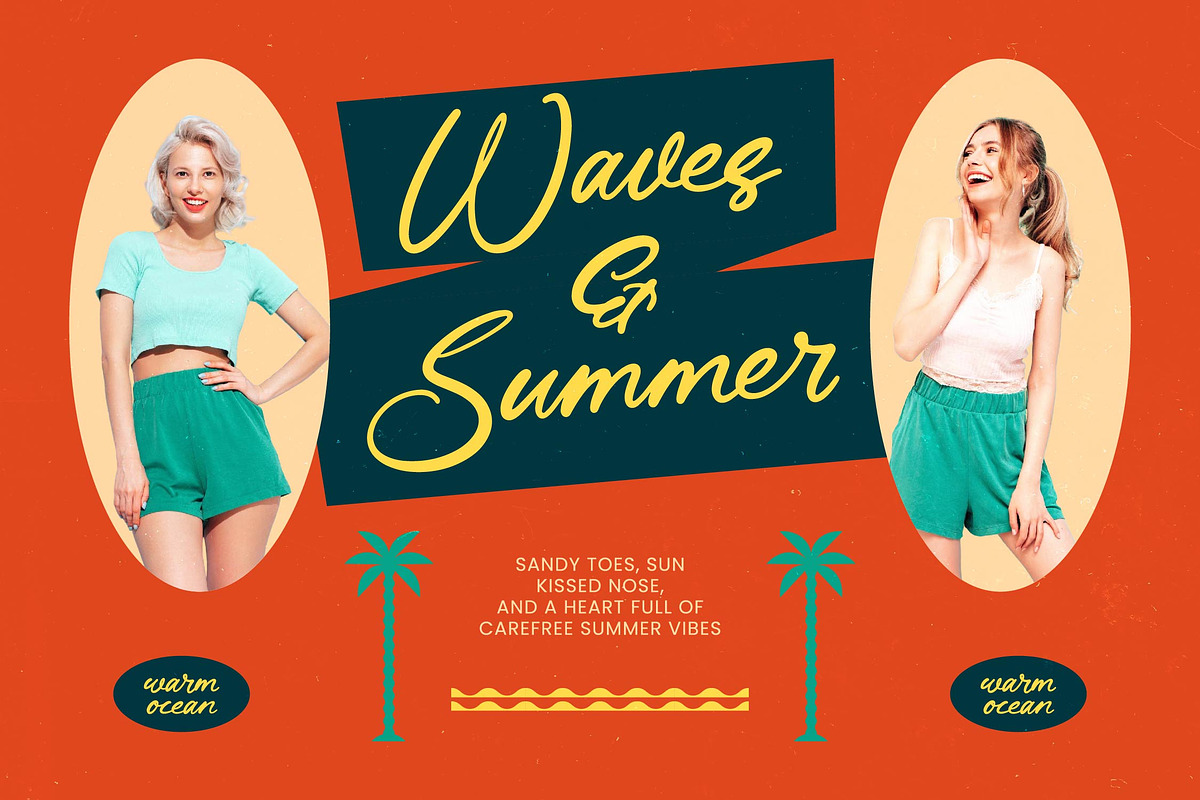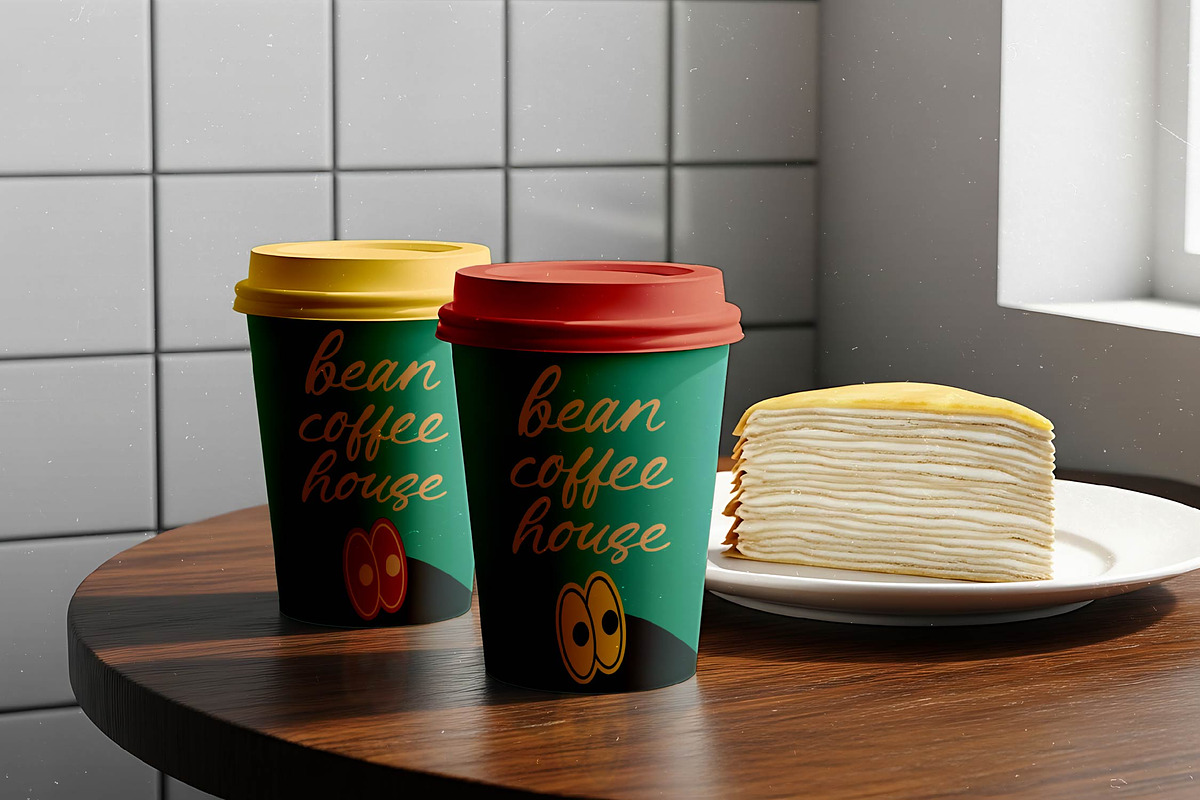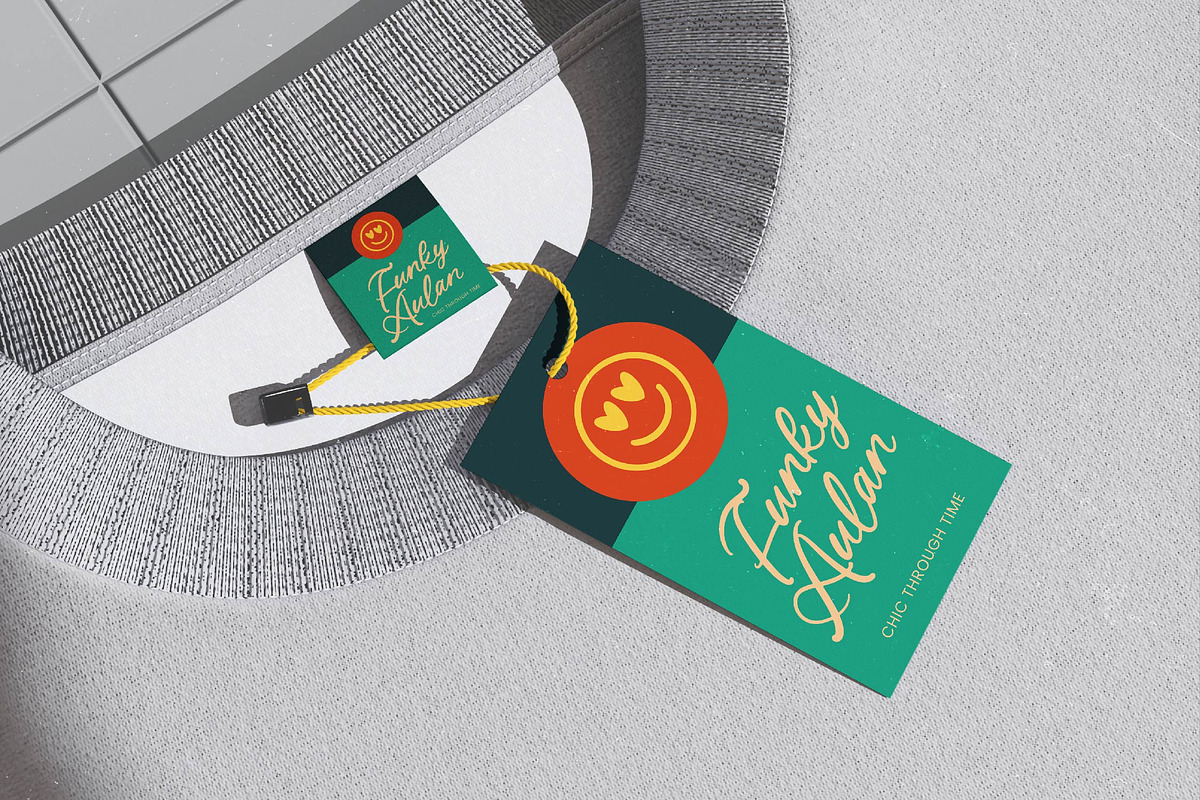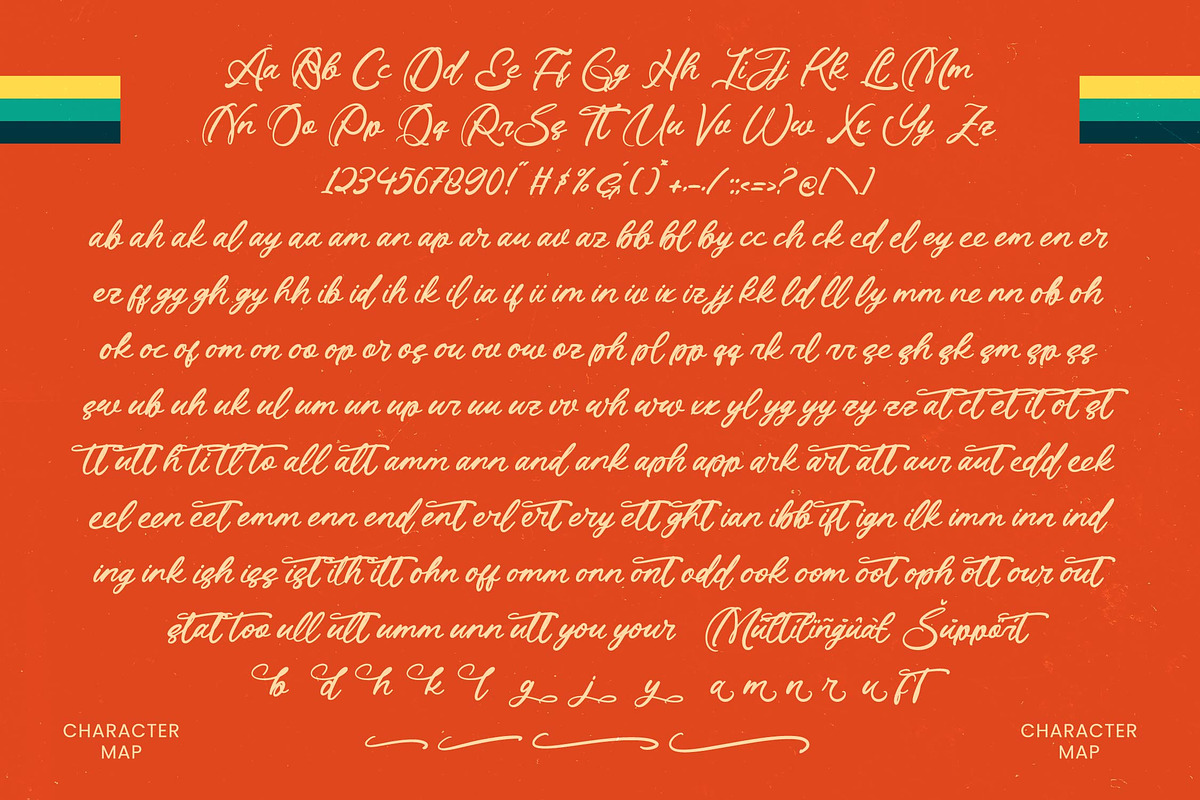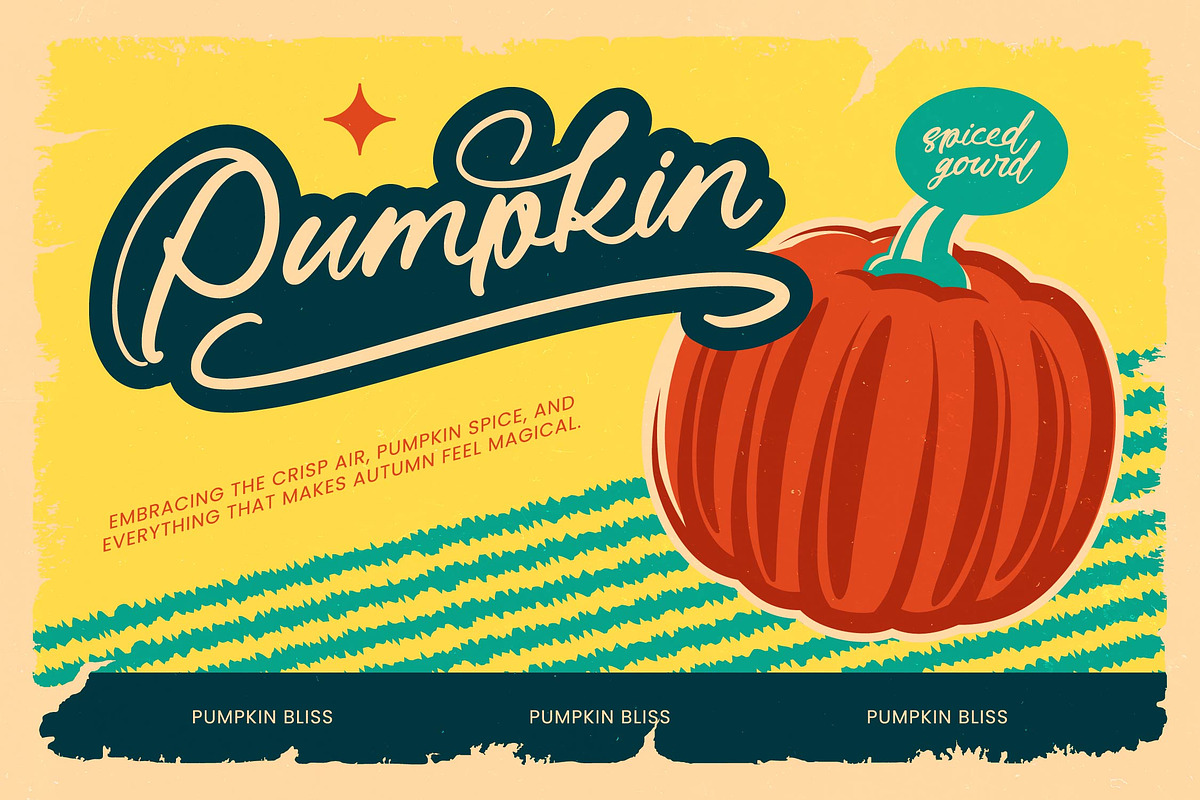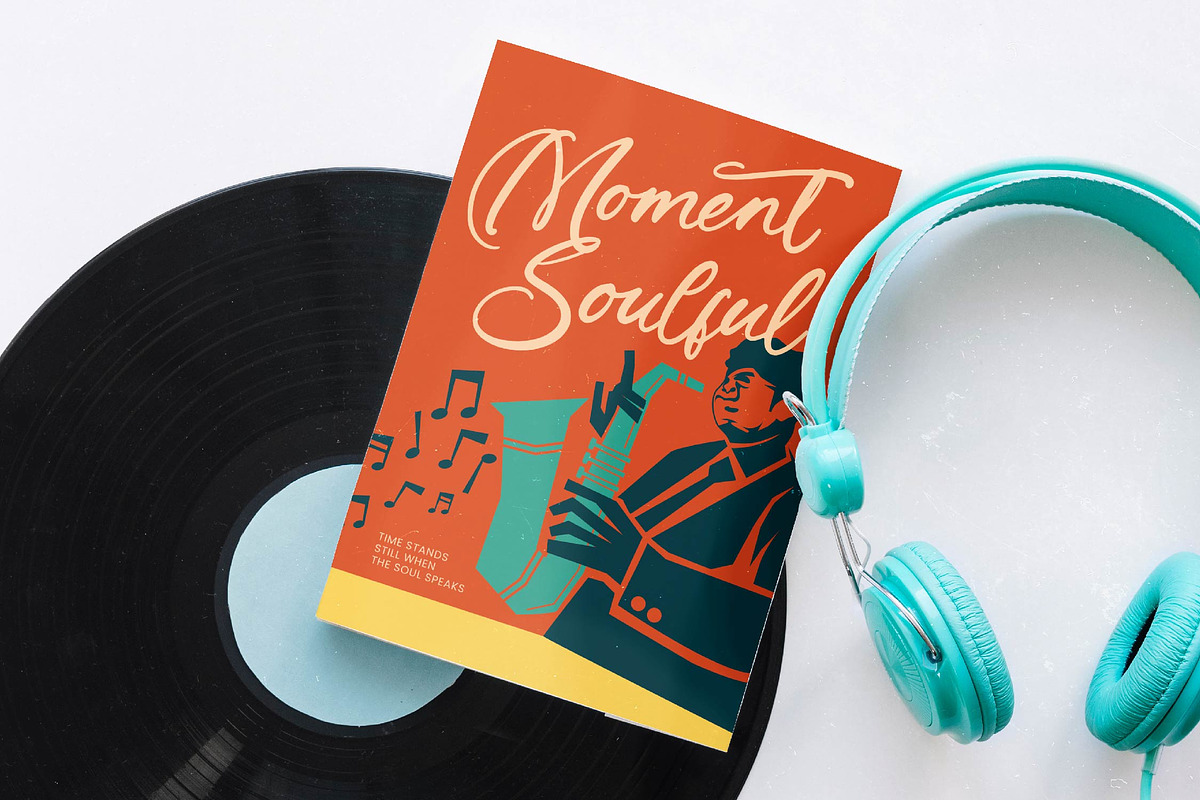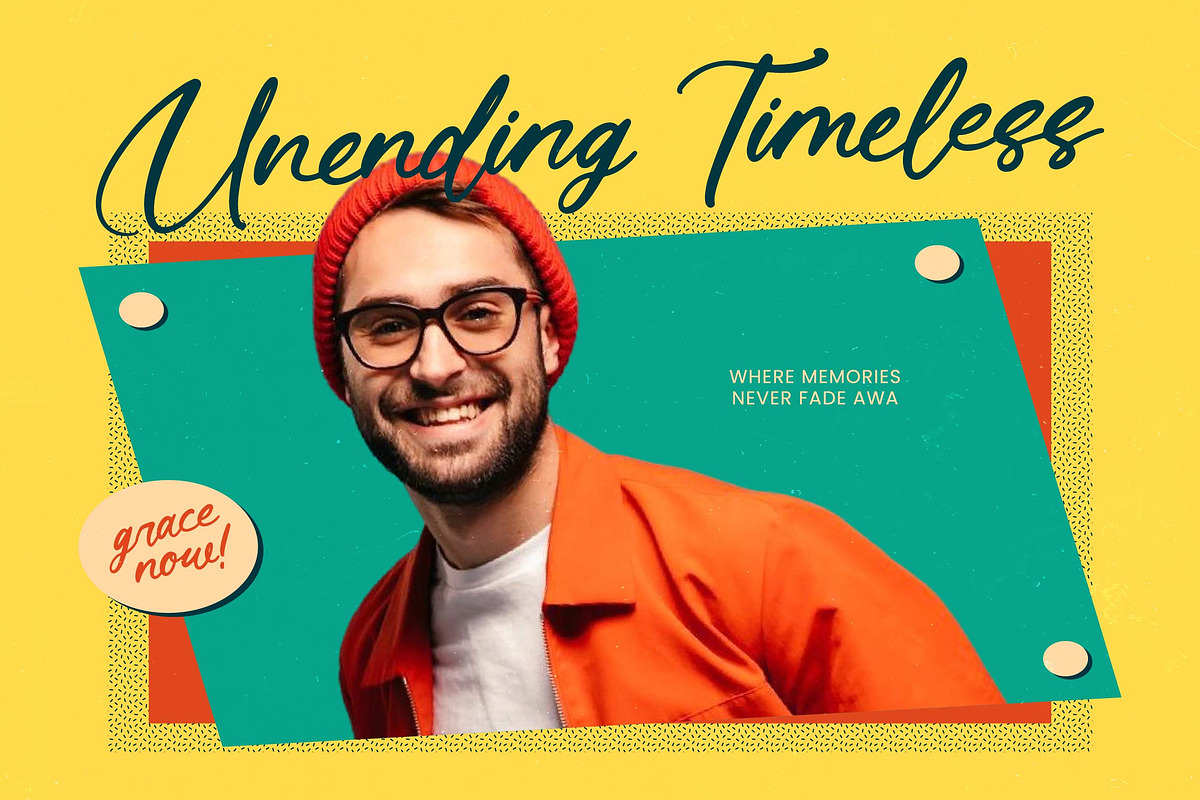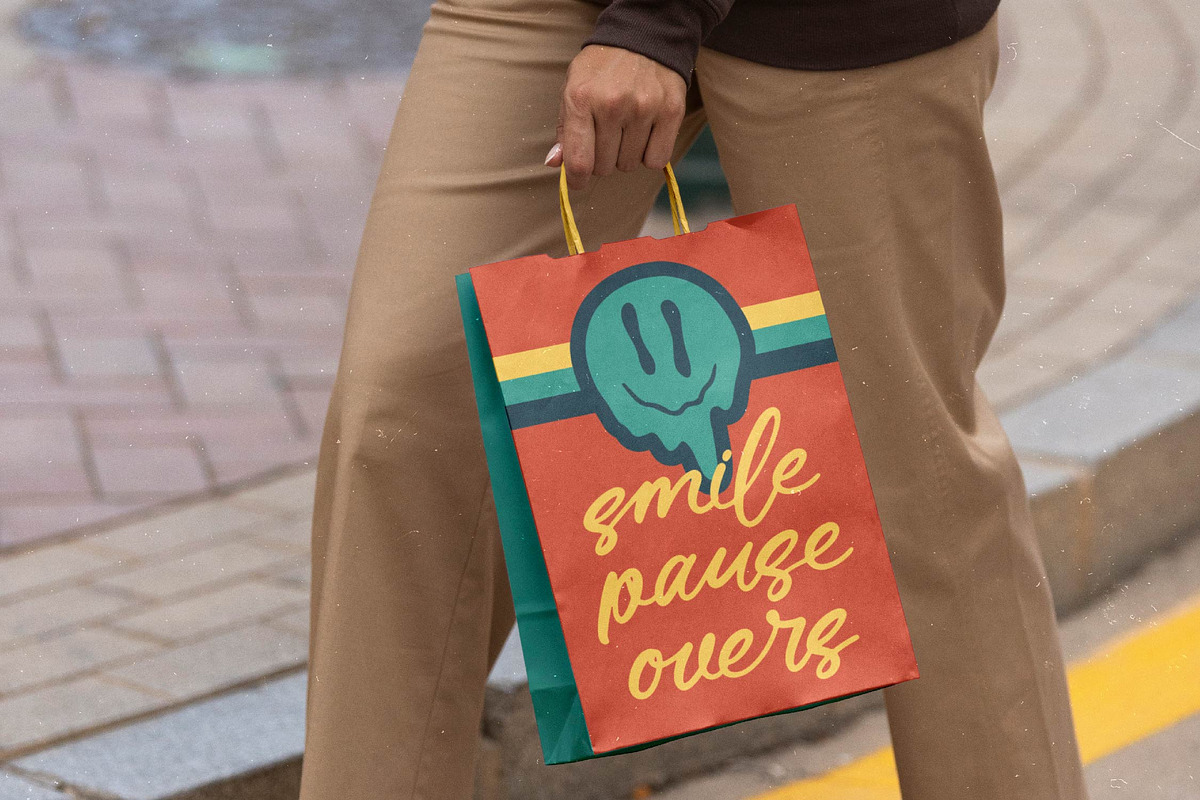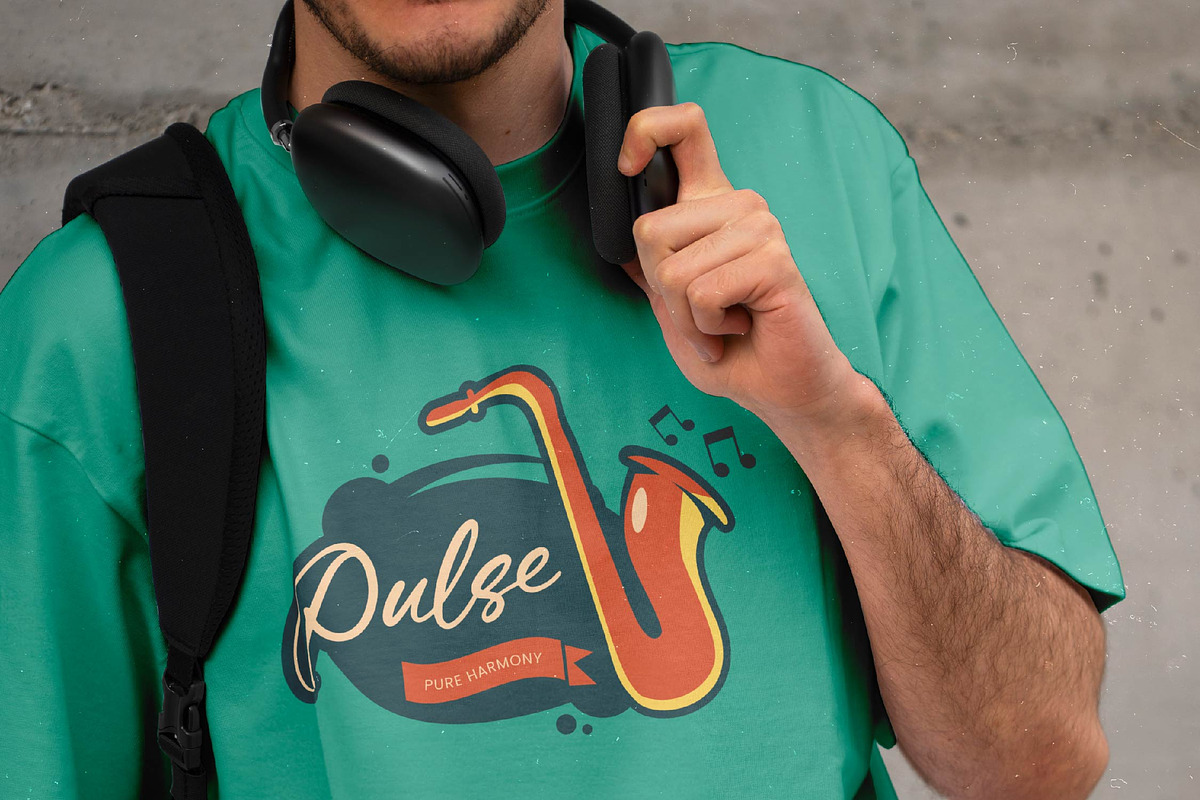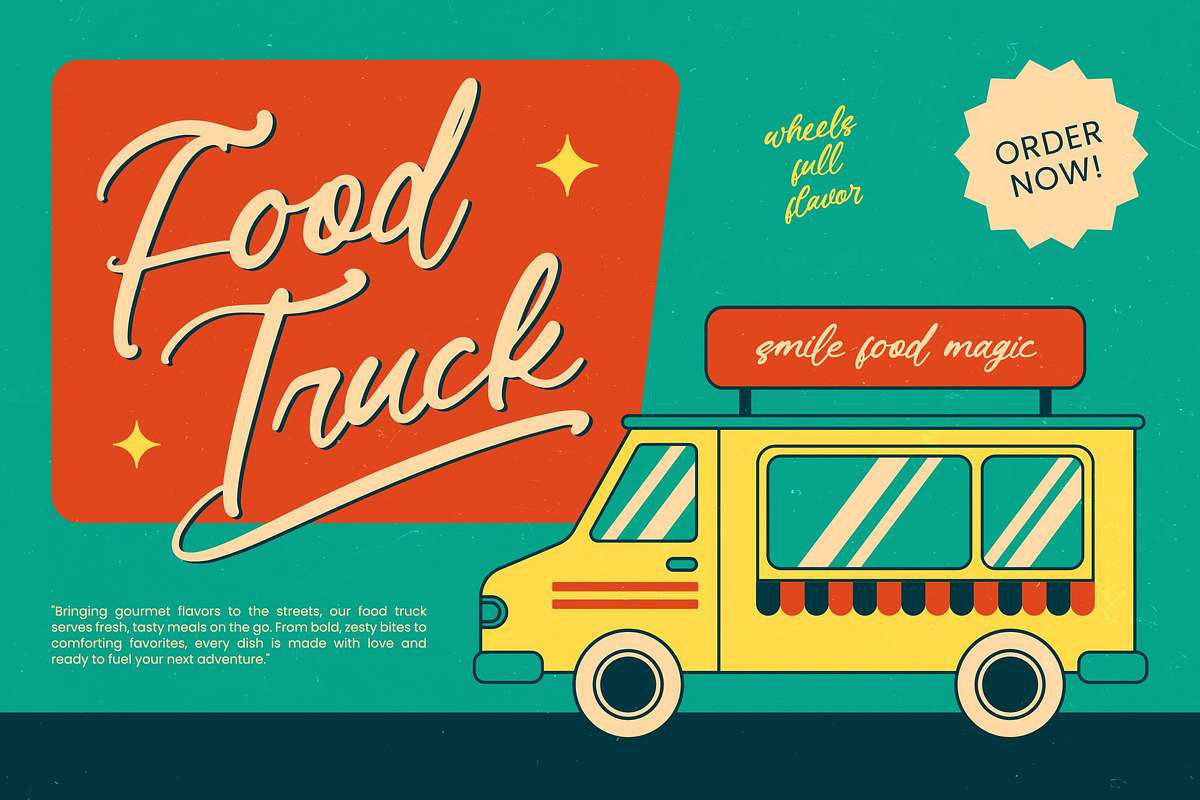
Janhira Aesthetic Handwritten Font
Janhira - Aesthetic Handwritten Font
Elevate your creative vision with a typeface that masterfully balances organic flow and sophisticated charm. Janhira - Aesthetic Handwritten Font is a premium calligraphy masterpiece, offering a fluid script that mimics natural handwriting with unparalleled grace. Its dynamic strokes and artistic flourishes provide a human touch that is often lost in digital design, making it a standout choice for professionals seeking authentic expression and distinctive visual appeal.
Transform your brand identity with a versatile tool designed for high-impact visual storytelling and aesthetic excellence. This font is the ideal choice for luxury branding, bespoke packaging, and high-end editorial design. Whether you are crafting elegant wedding invitations, custom logo marks, or influencer social media graphics, Janhira - Aesthetic Handwritten Font adds a layer of timeless elegance and sophisticated personality to every creative composition.
Unlock limitless creative possibilities with a robust set of features tailored for professional design needs and global reach. Boasting over 500 glyphs, including 177 ligatures and unique swashes, this typeface offers unmatched flexibility for achieving custom, hand-crafted typographic layouts. With its extensive multilingual support, Janhira - Aesthetic Handwritten Font adapts seamlessly across global markets, making it incredibly versatile for international projects and ensuring your message resonates across diverse audiences.
Invest in a high-performance asset that guarantees a lasting impression and professional-grade results in any medium. Choosing Janhira - Aesthetic Handwritten Font means integrating a contemporary aesthetic that bridges the gap between vintage artistry and modern functionality. Its smooth curves and refined legibility make it a must-have tool for designers who demand excellence and wish to distinguish their portfolio in a competitive commercial marketplace.